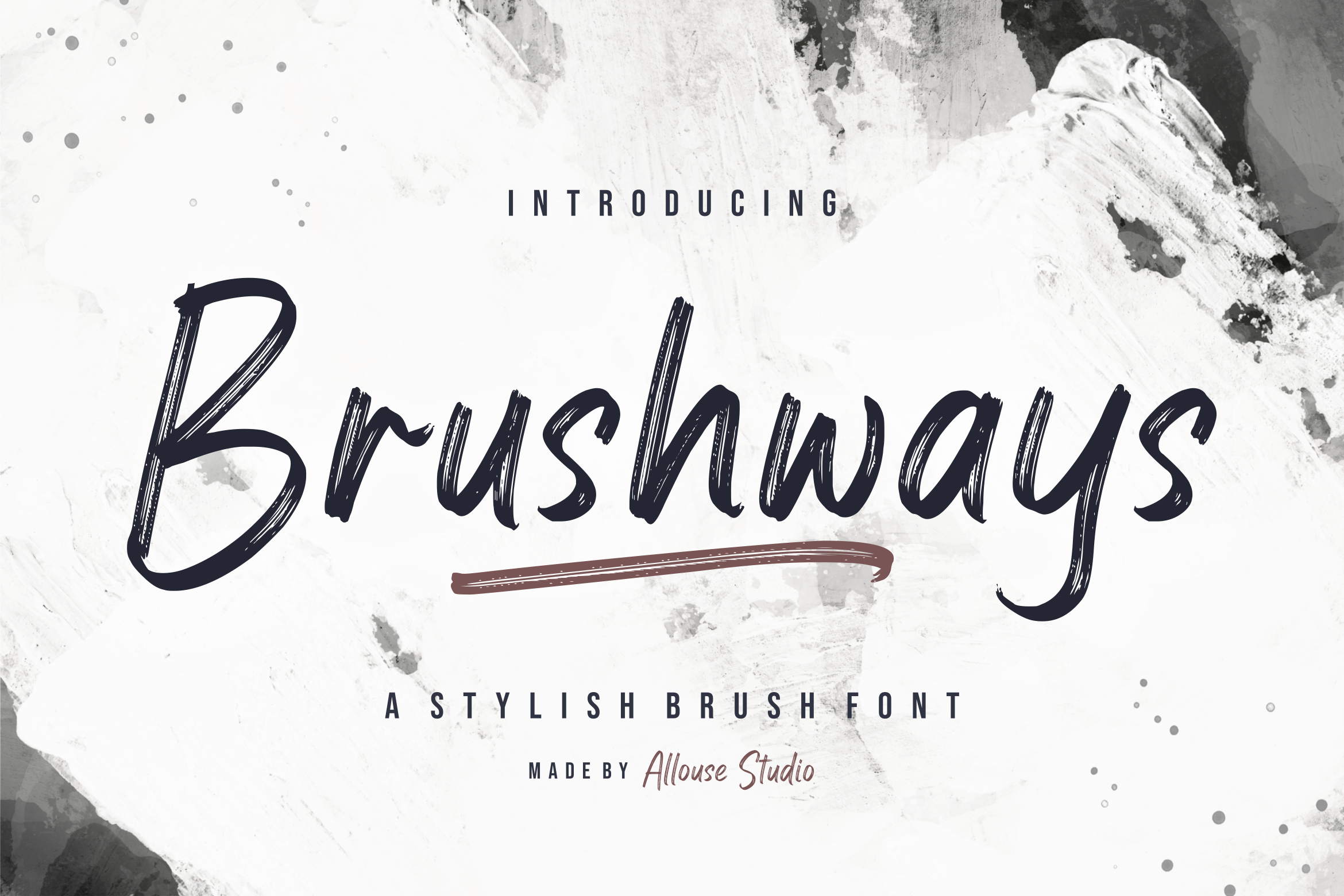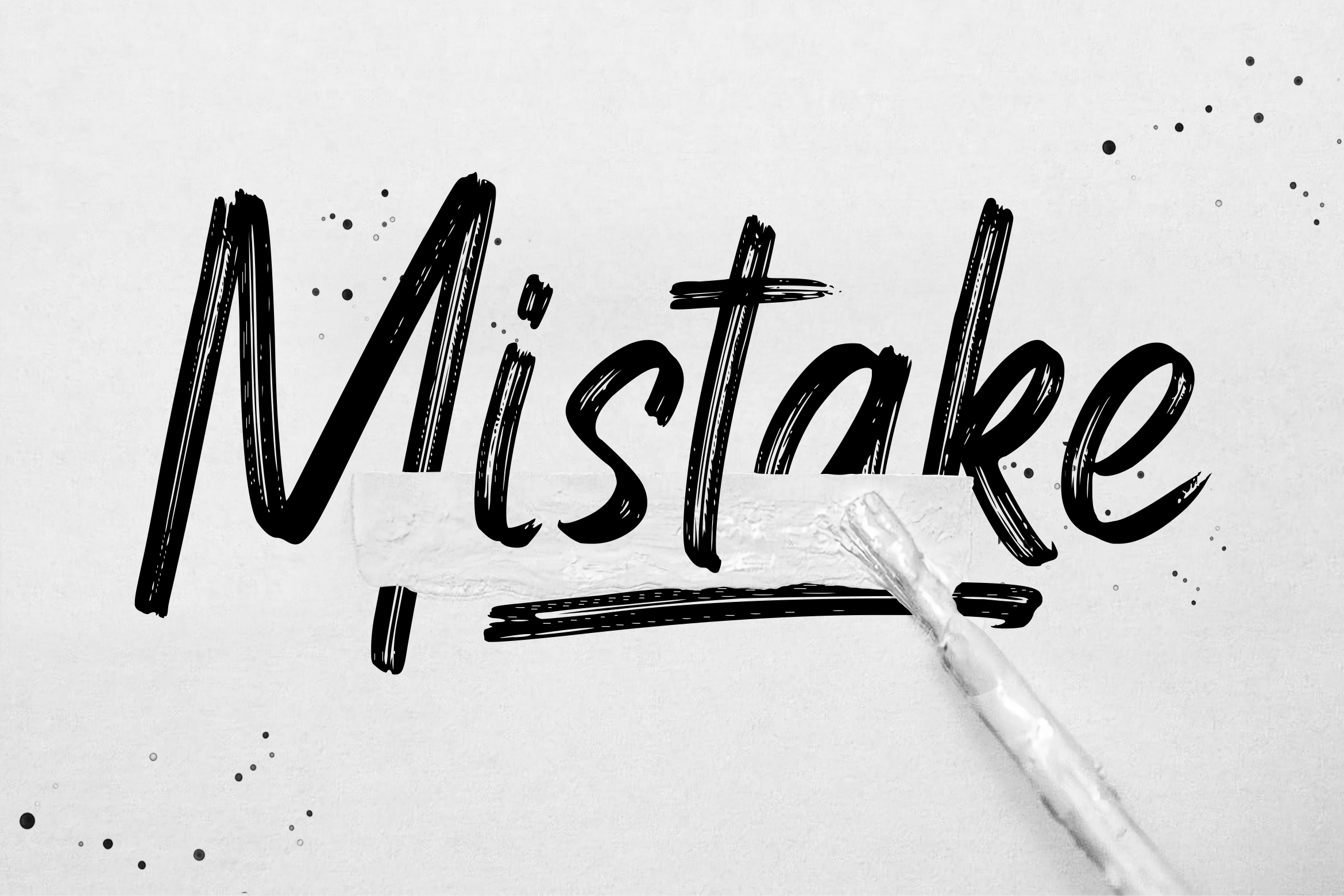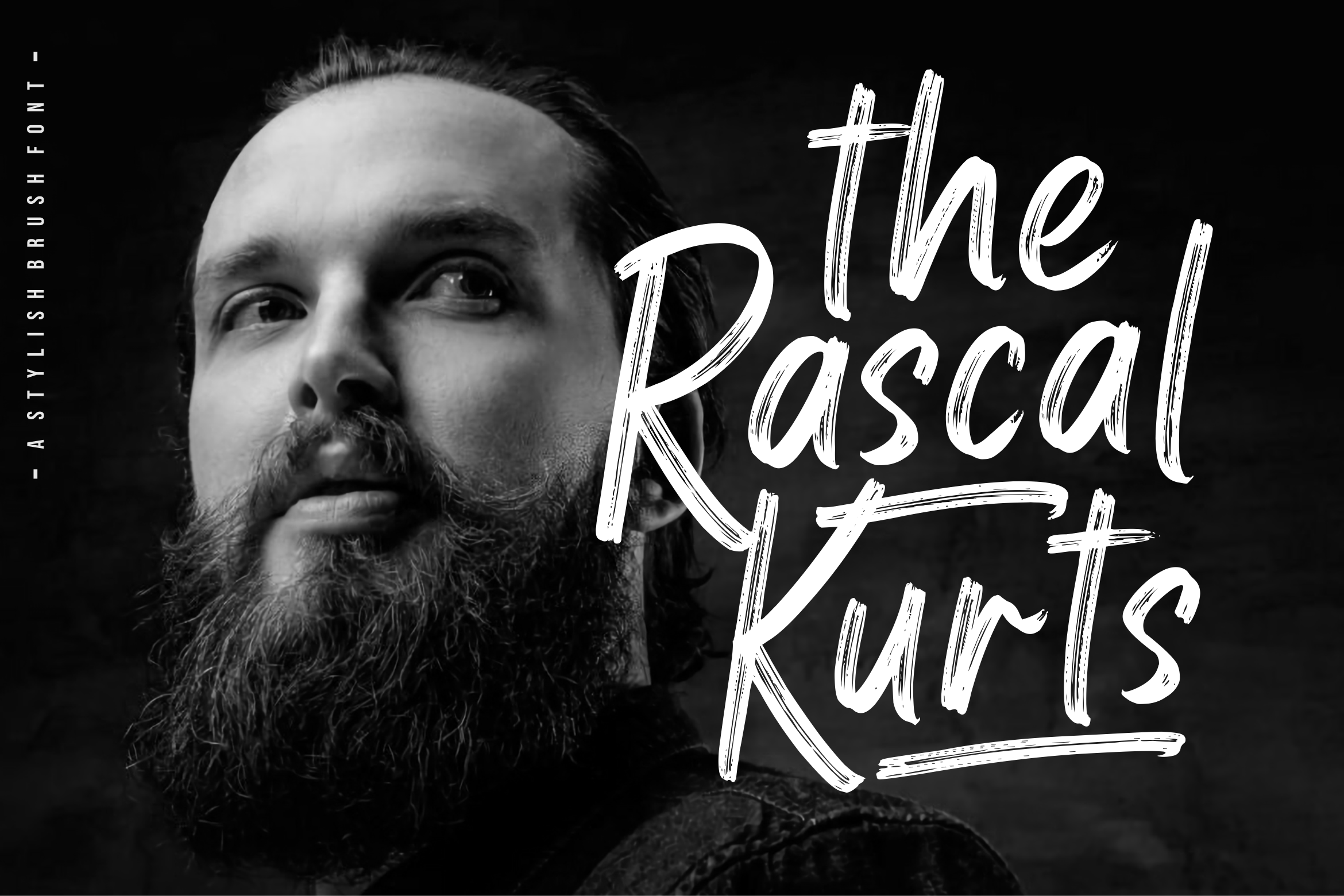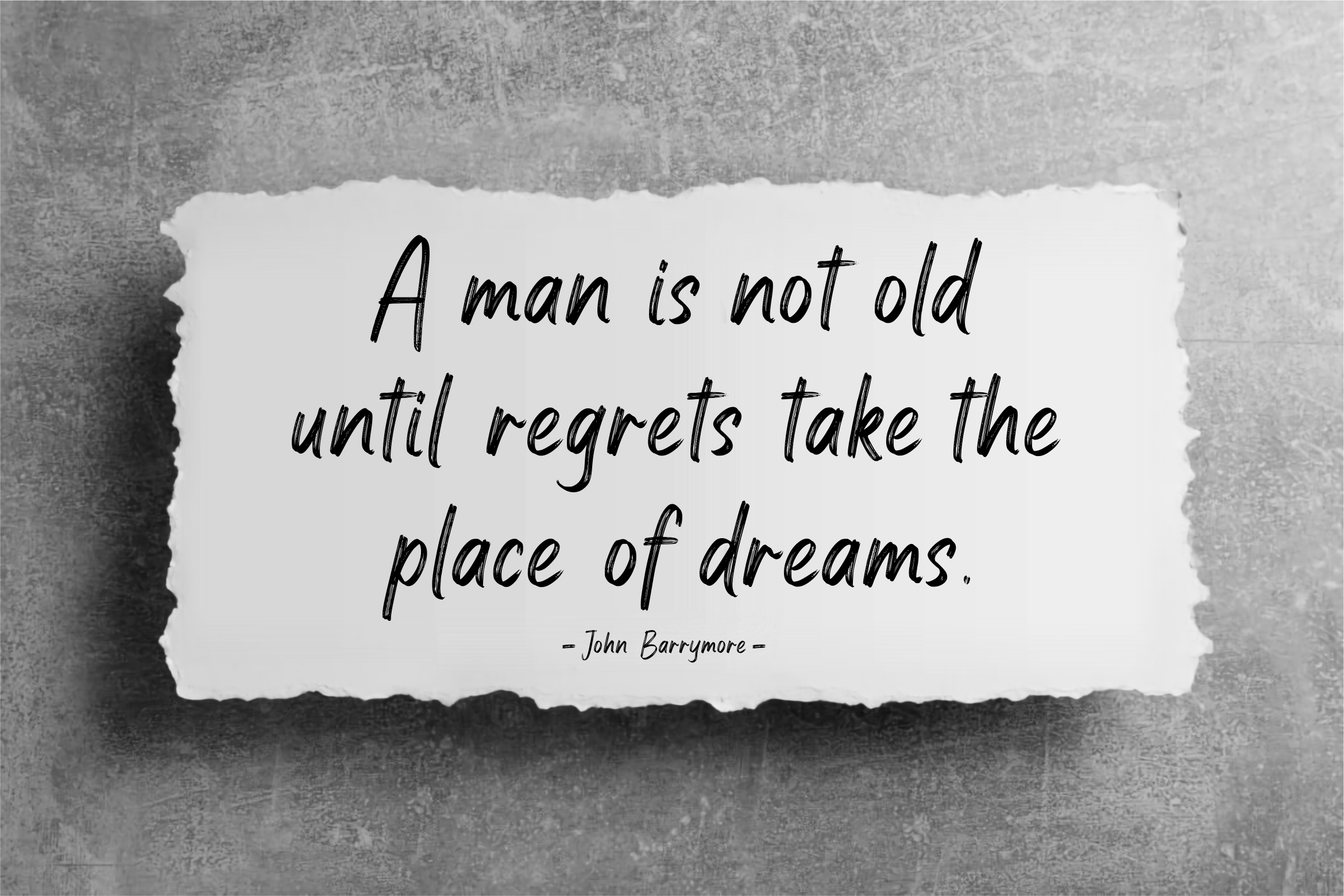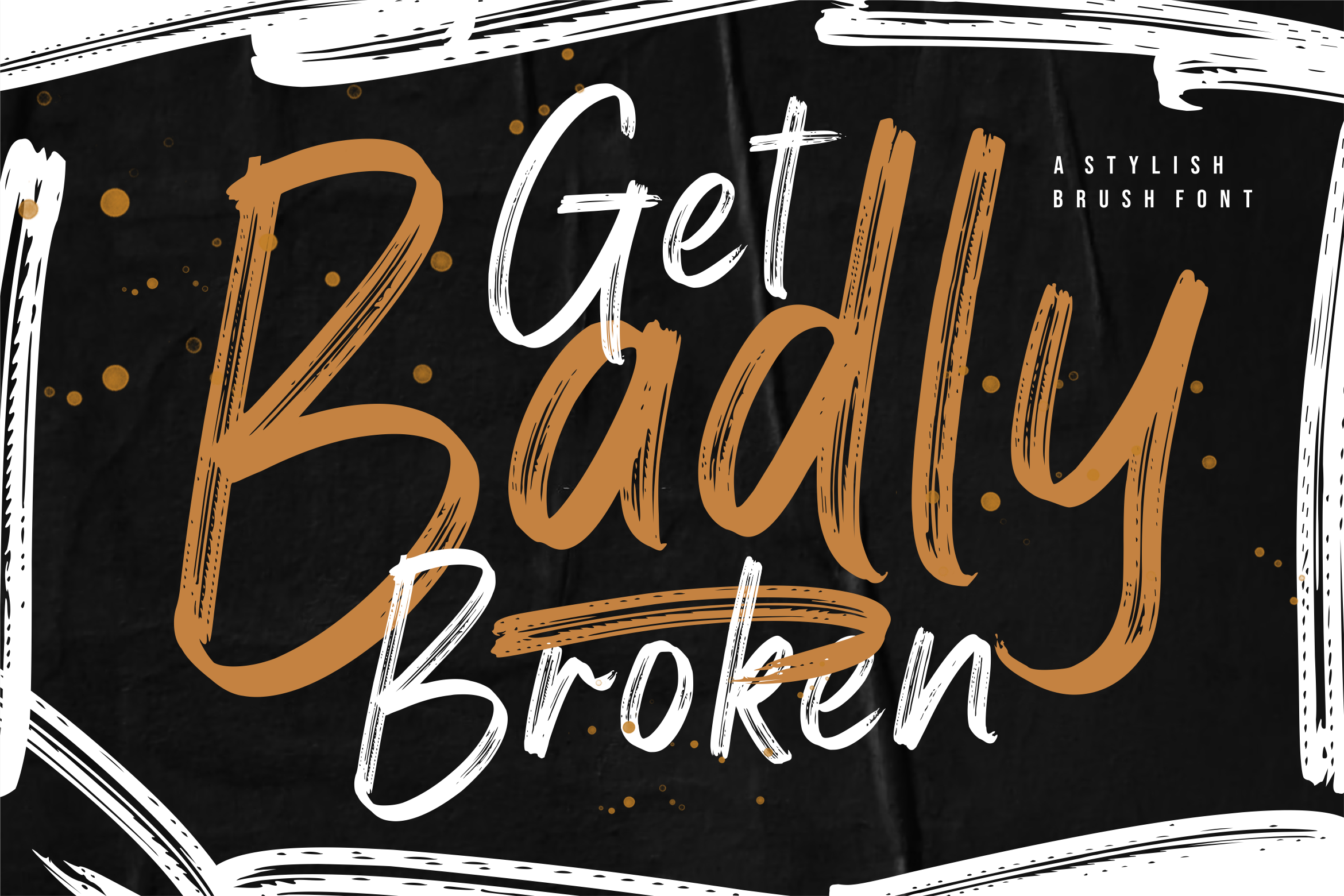
Brushways Font
Brushways Brush Font is perfect for product packaging, branding project, magazines, social media, weddings, or just used to express words above the background.